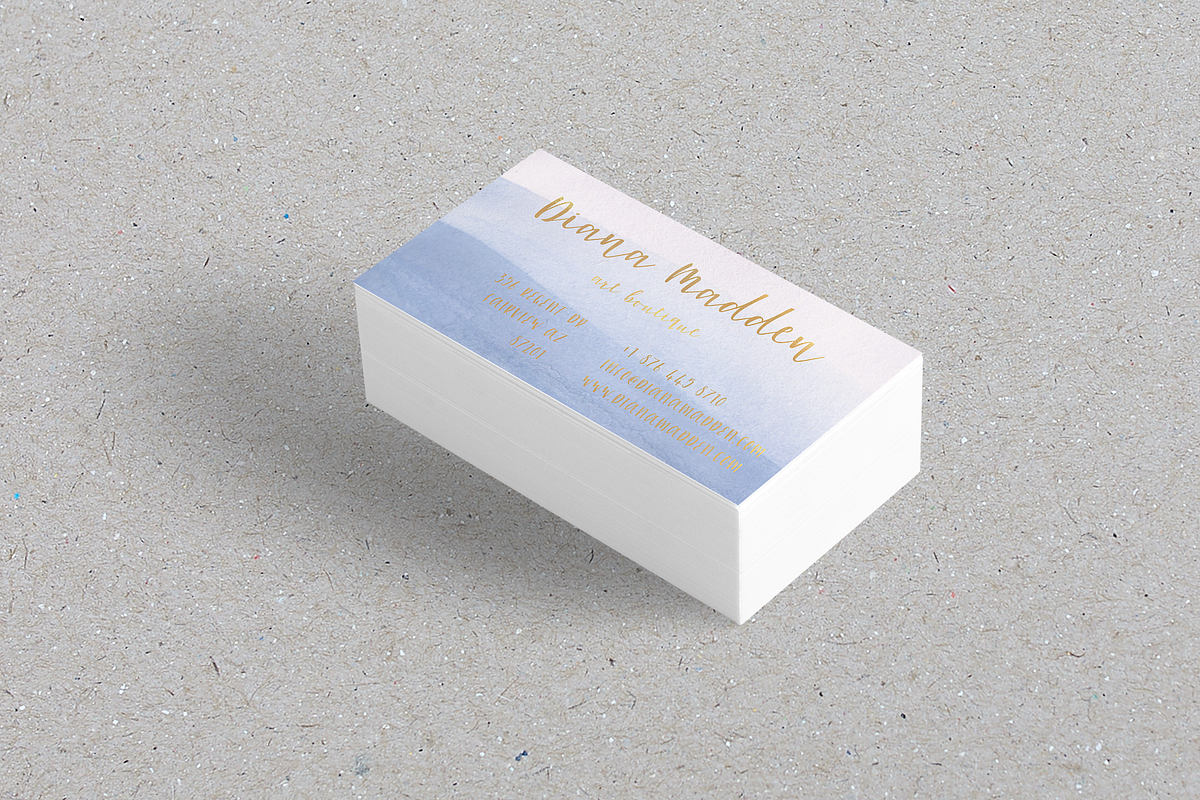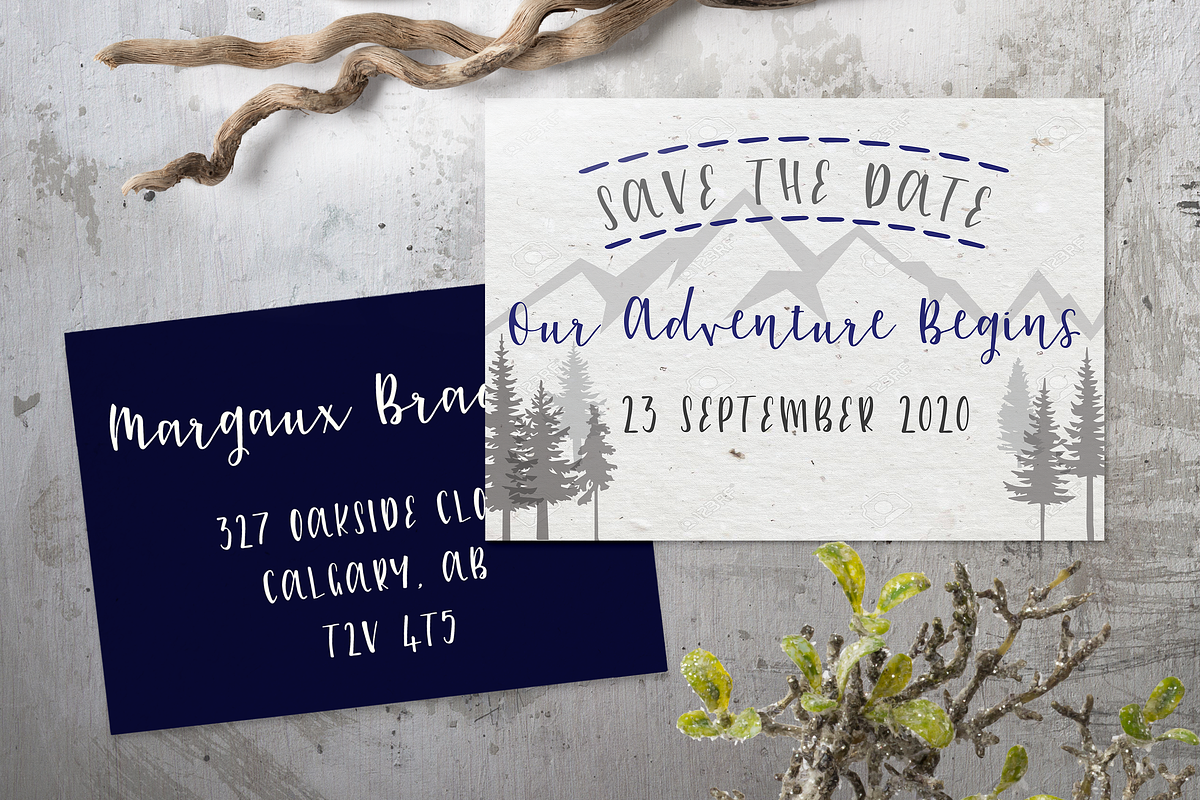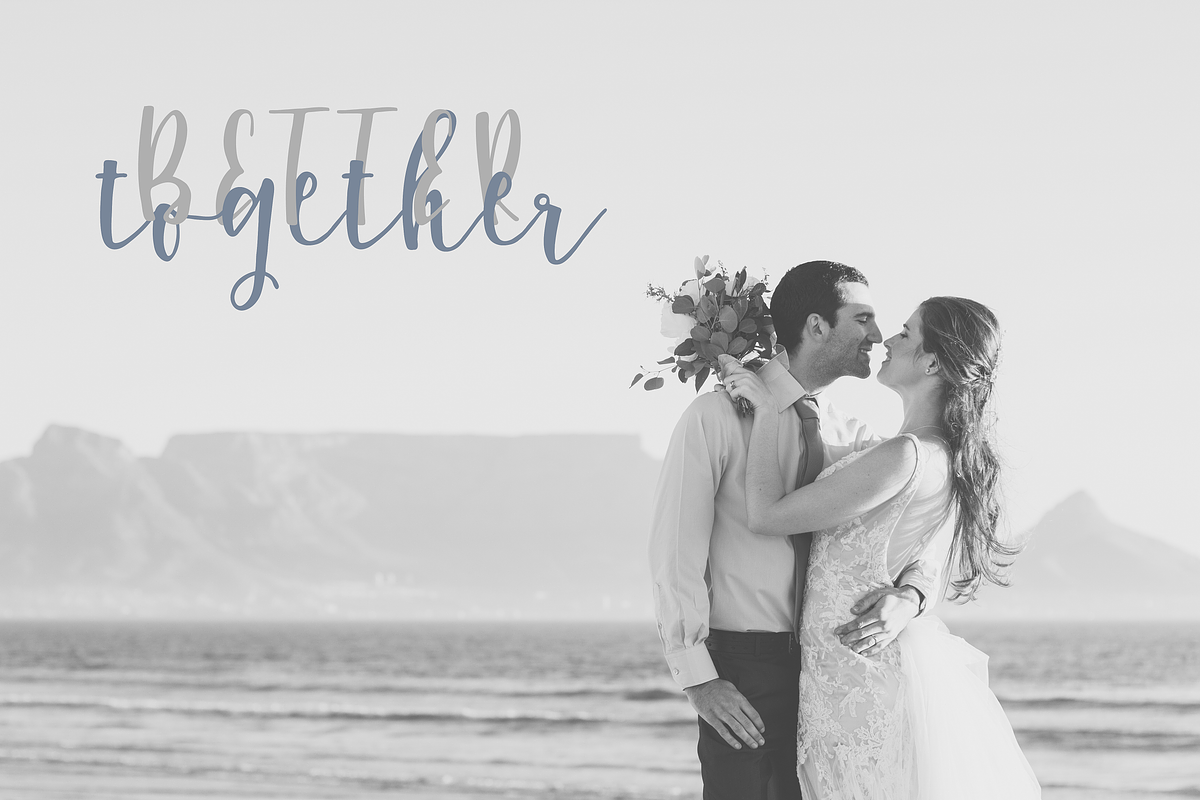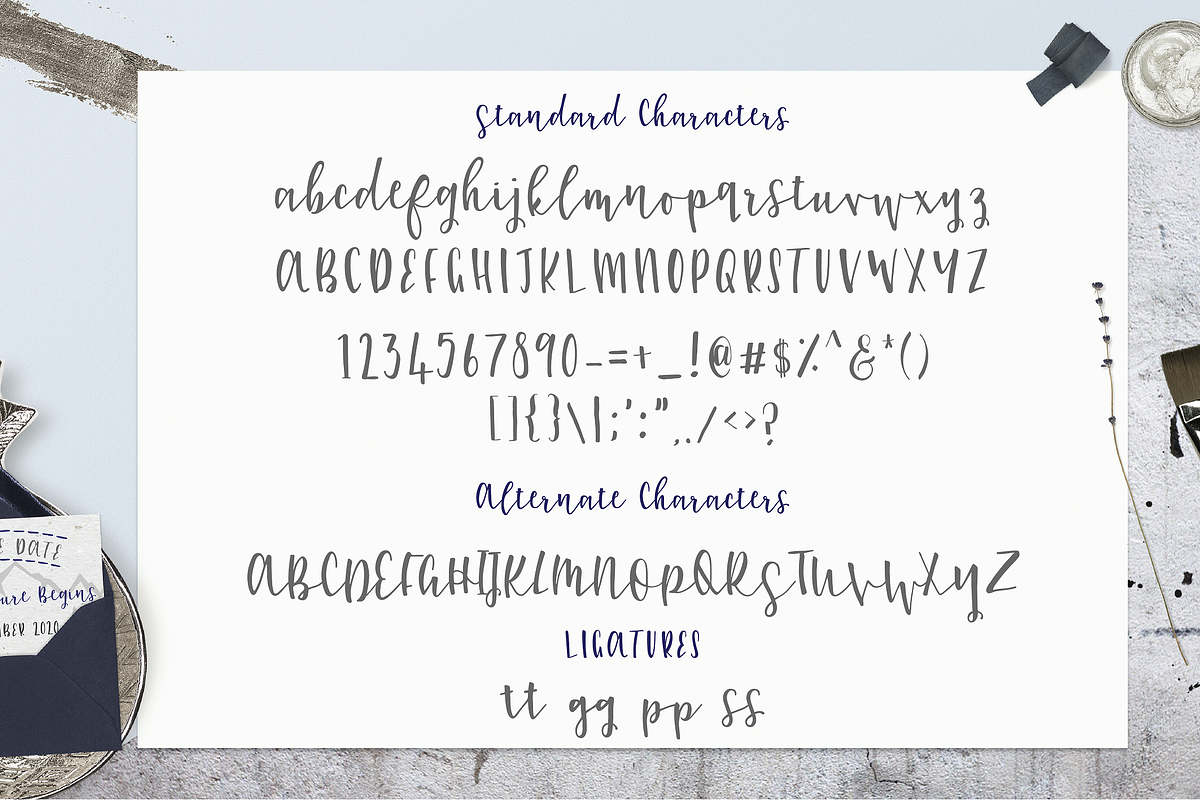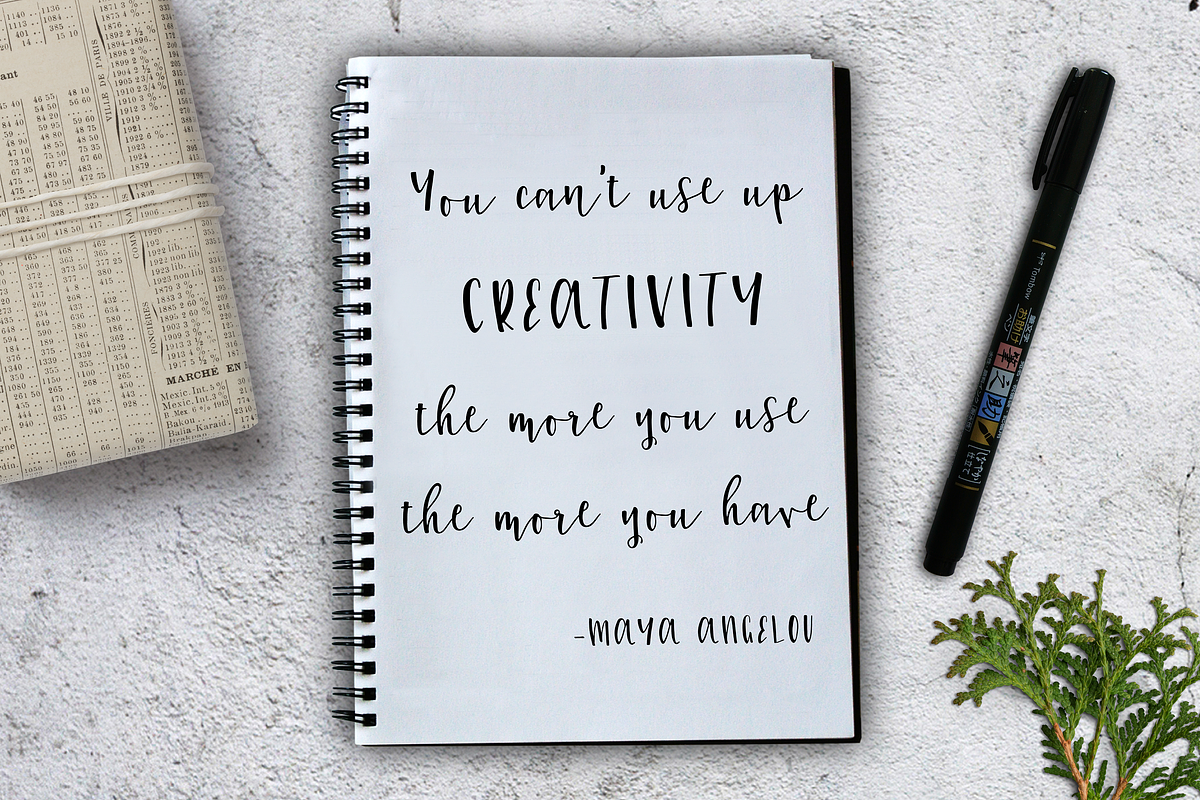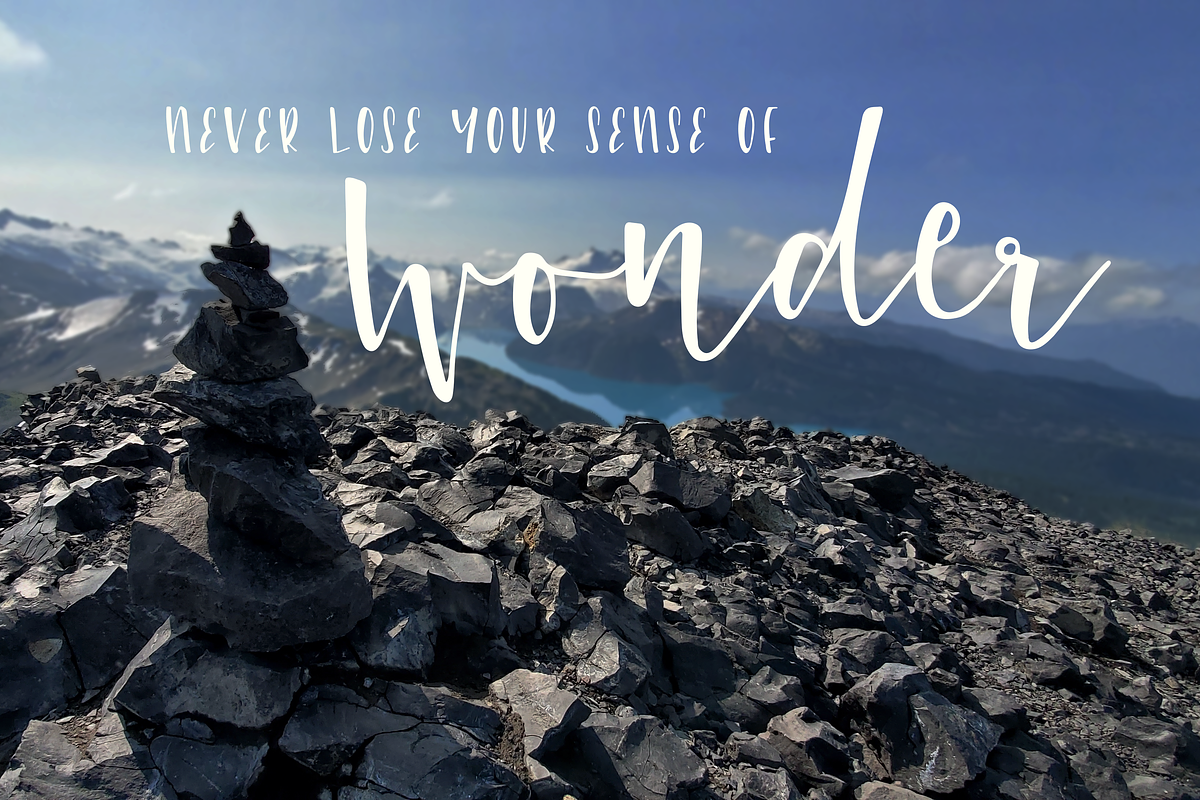
Selcouth Font Duo
A unique script font with a modern flow, perfect for adding an organic touch to any product design.
Selcouth script font includes:
All caps style with a natural handwritten look.
Script lower case characters with three ligatures and two automated stylistic alternatives.
Script uppercase characters for completely joined words.
All symbols and numbers.